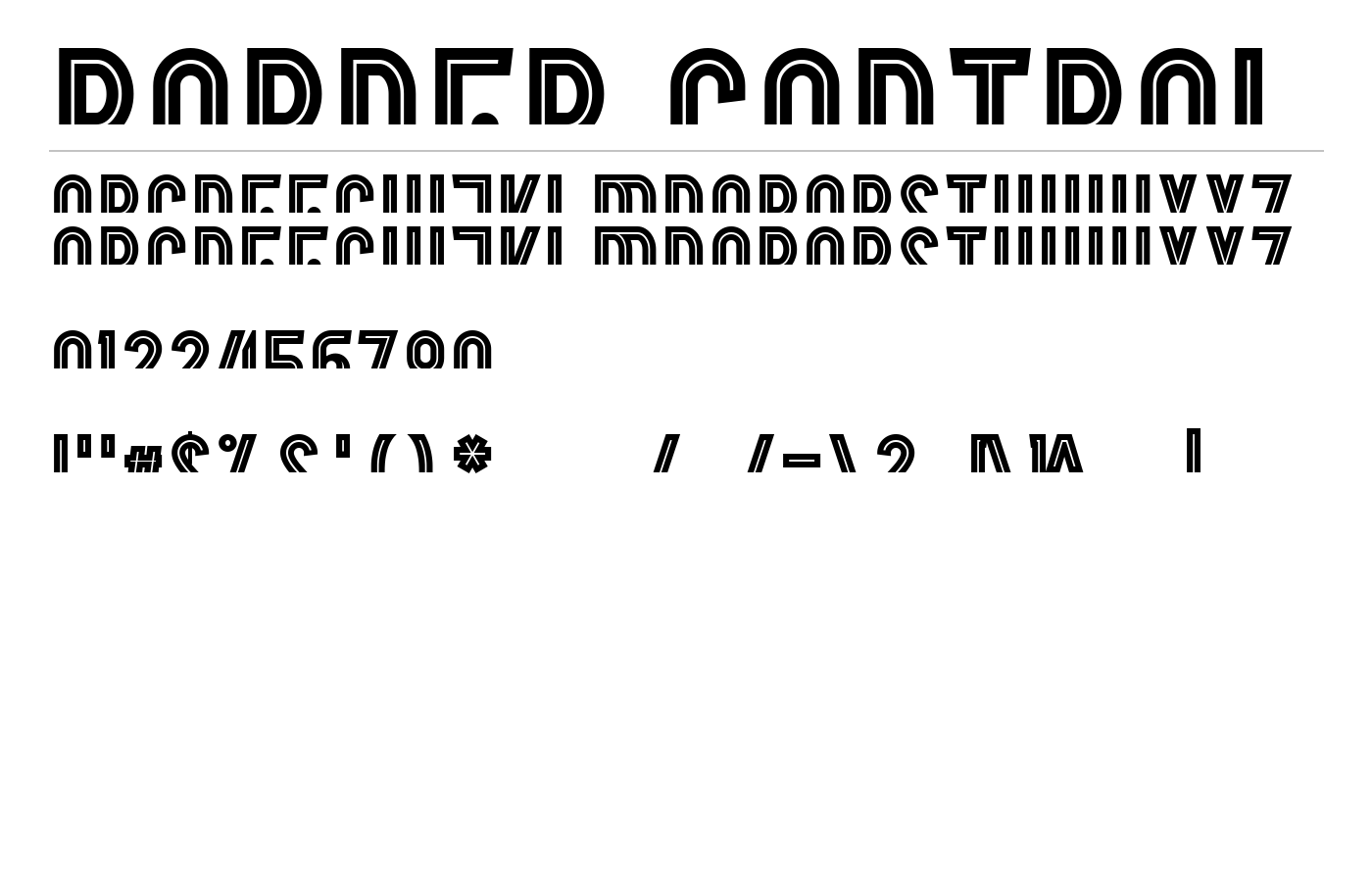
Border Control is a bold, condensed sans serif font with a distinct, layered outline style that creates a striking, almost architectural look. Its high contrast between thick and thin strokes and geometric letterforms give it a modern, edgy feel, making it ideal for headlines, logos, and branding that aim to stand out with a strong, urban vibe. This font works best in display settings where its decorative, stacked outlines can be fully appreciated.
Border Control Font
About Border Control Font